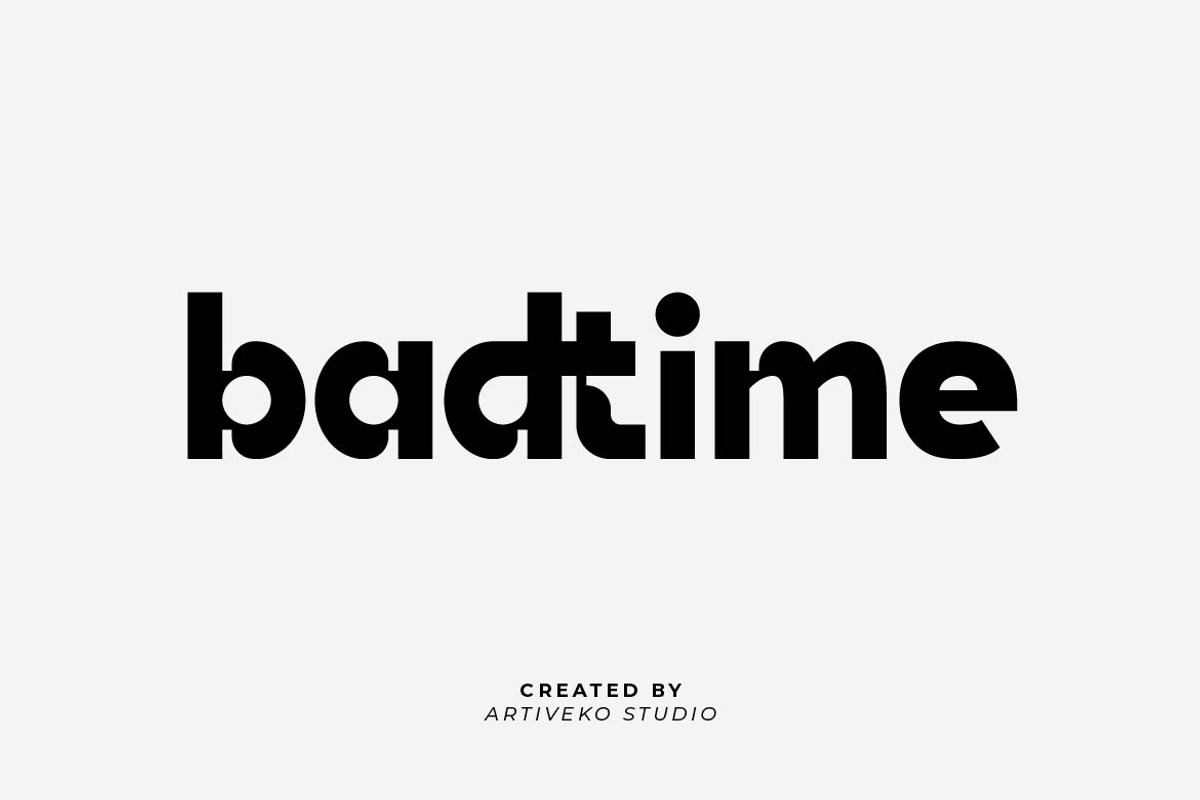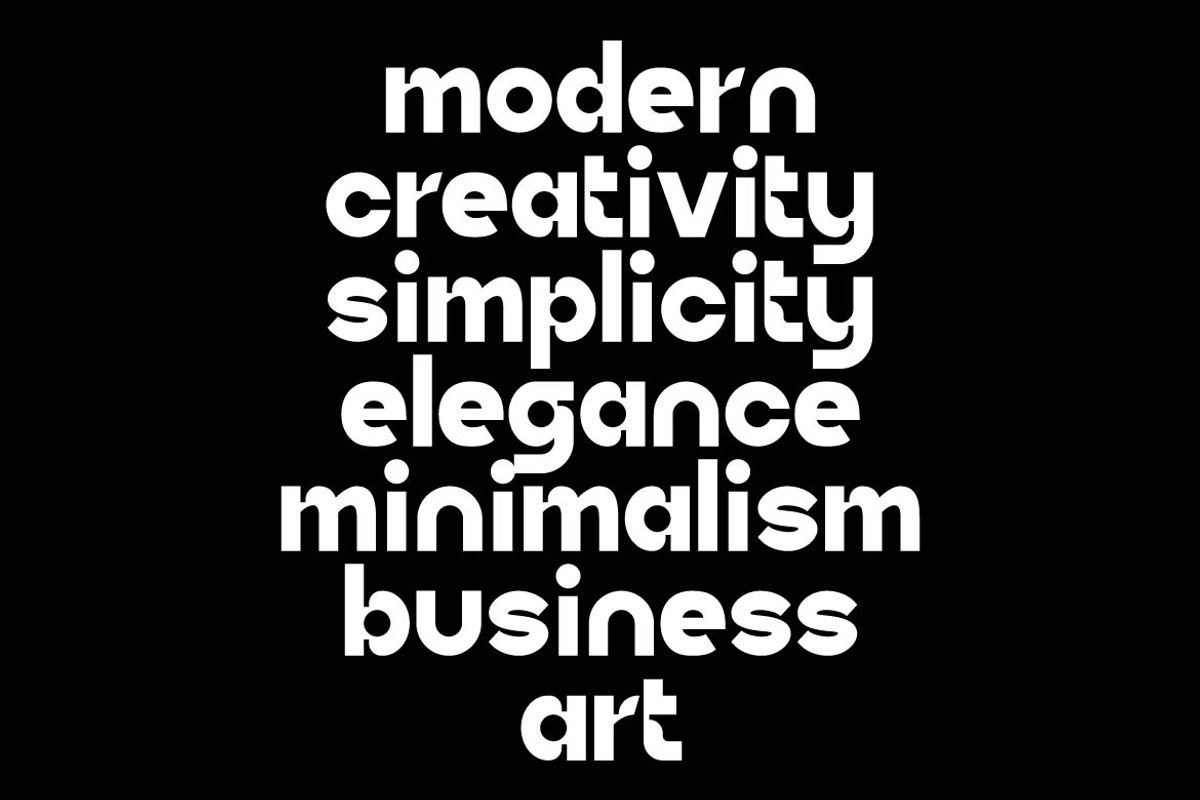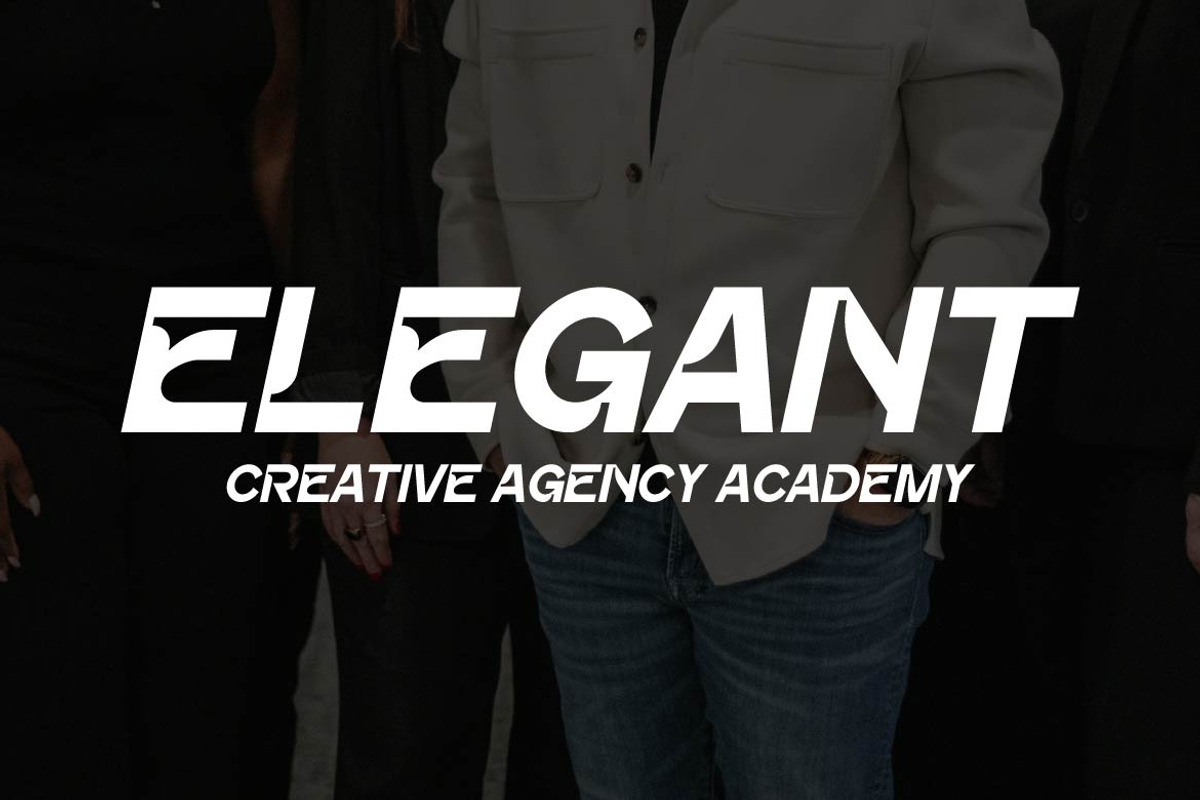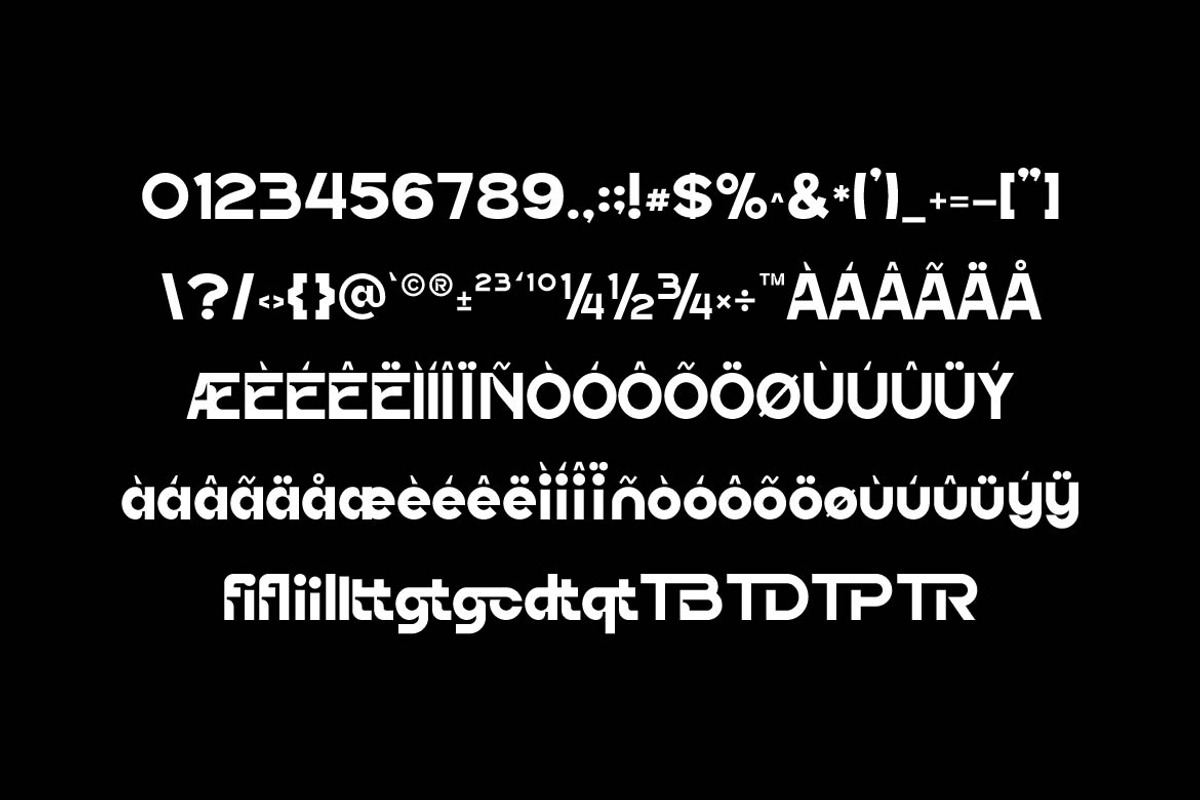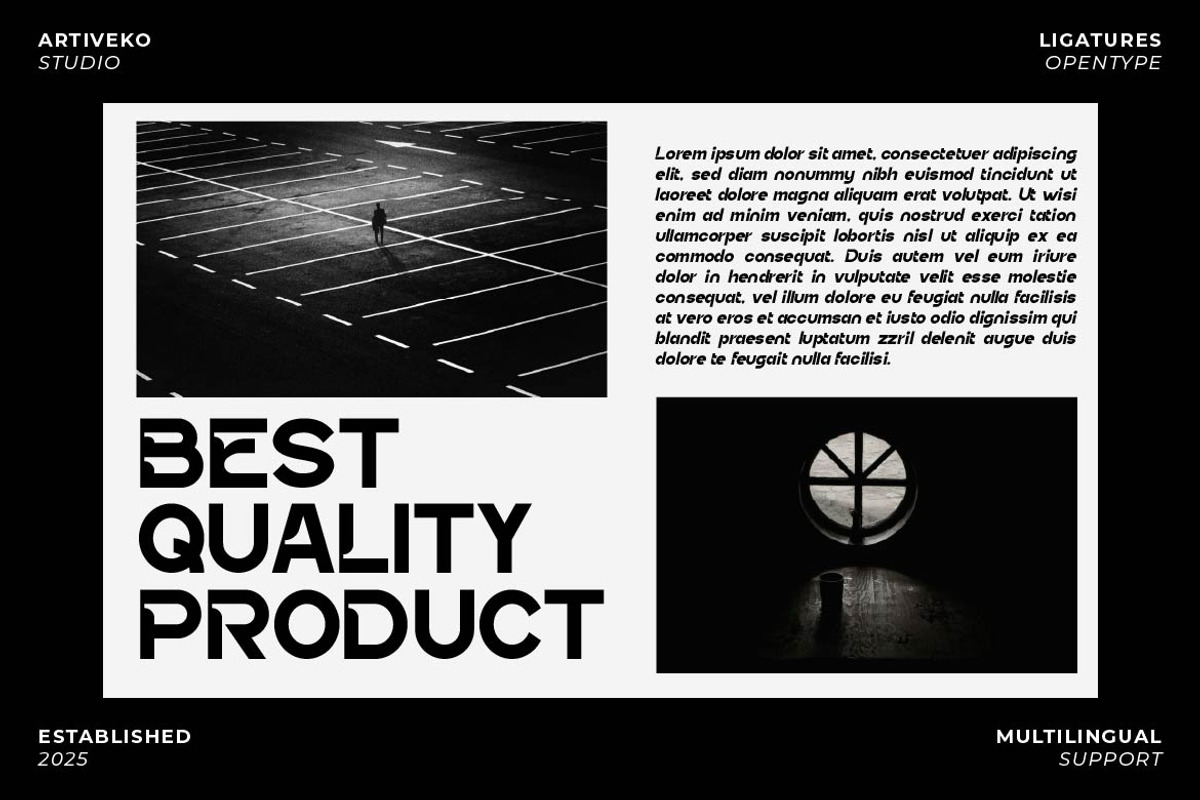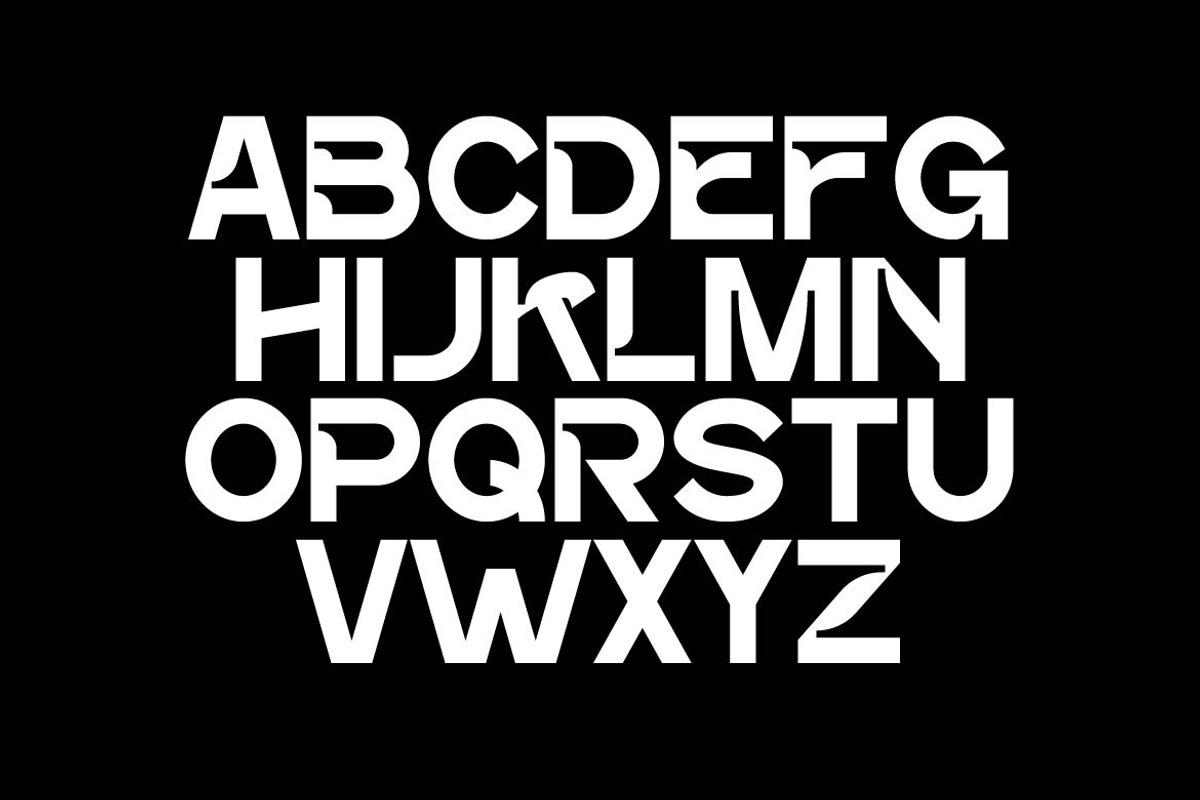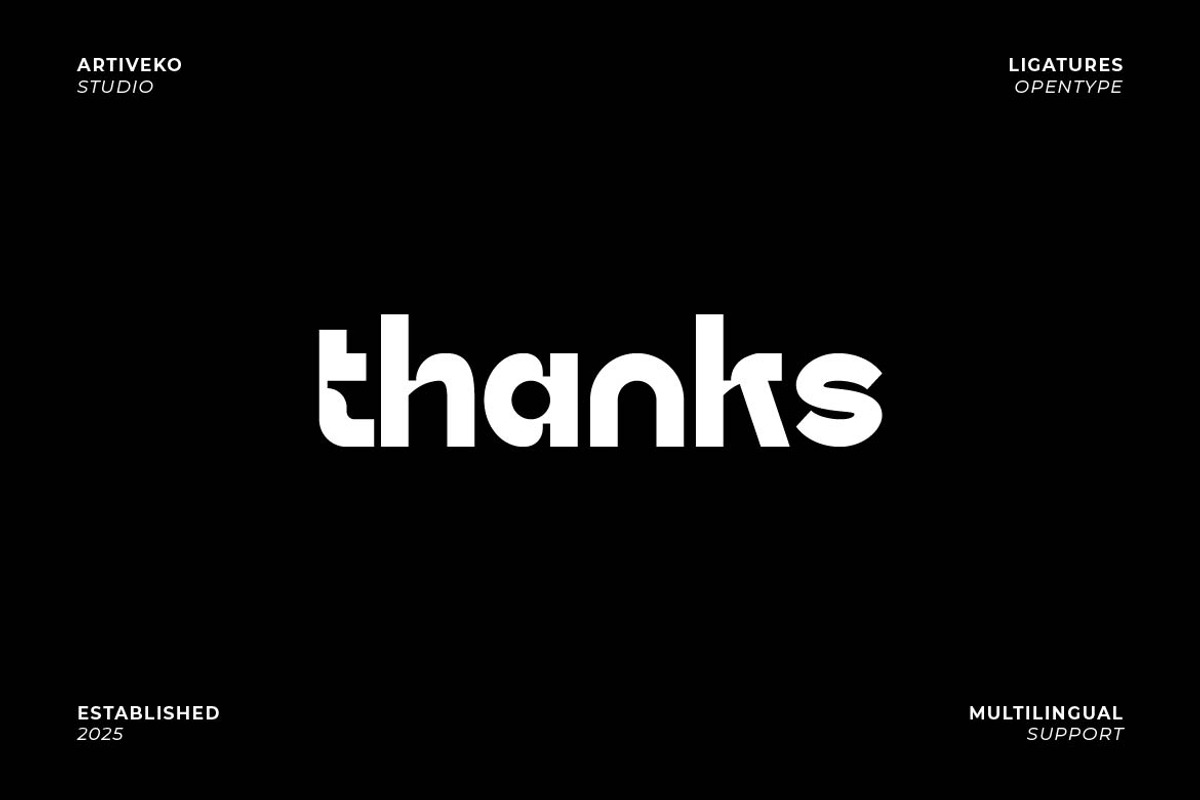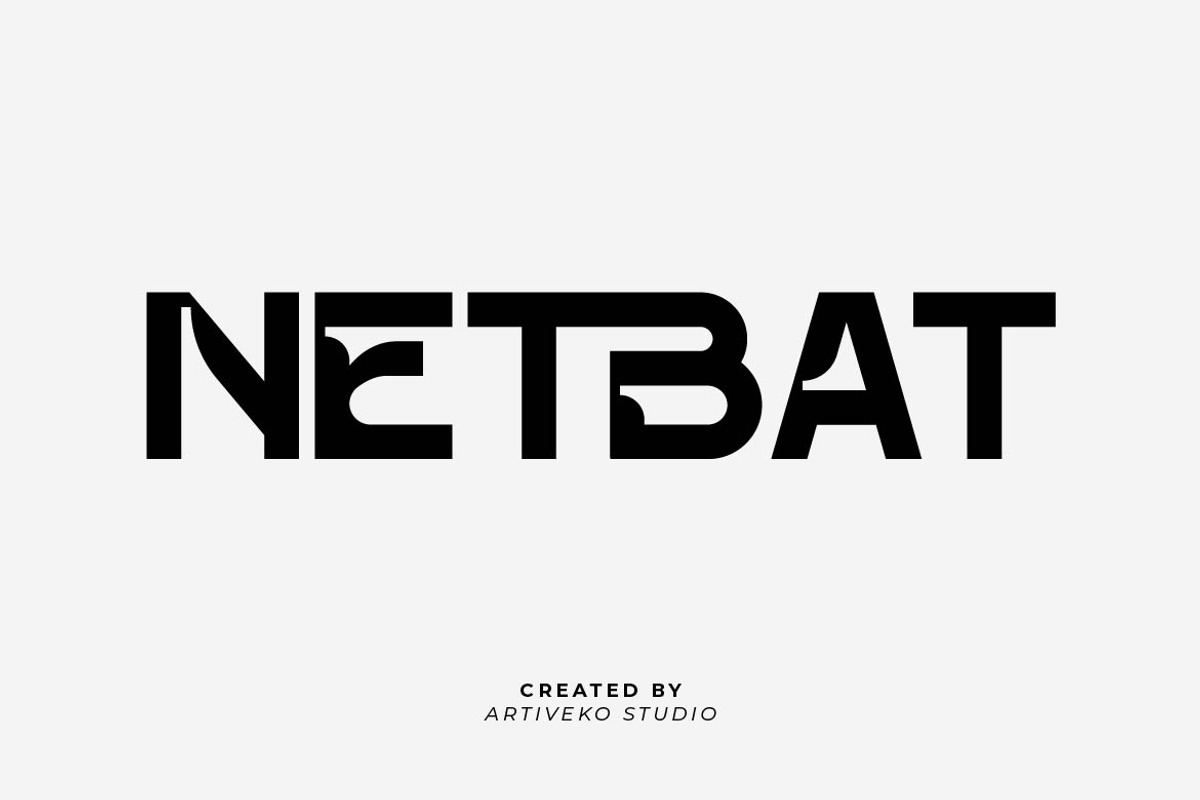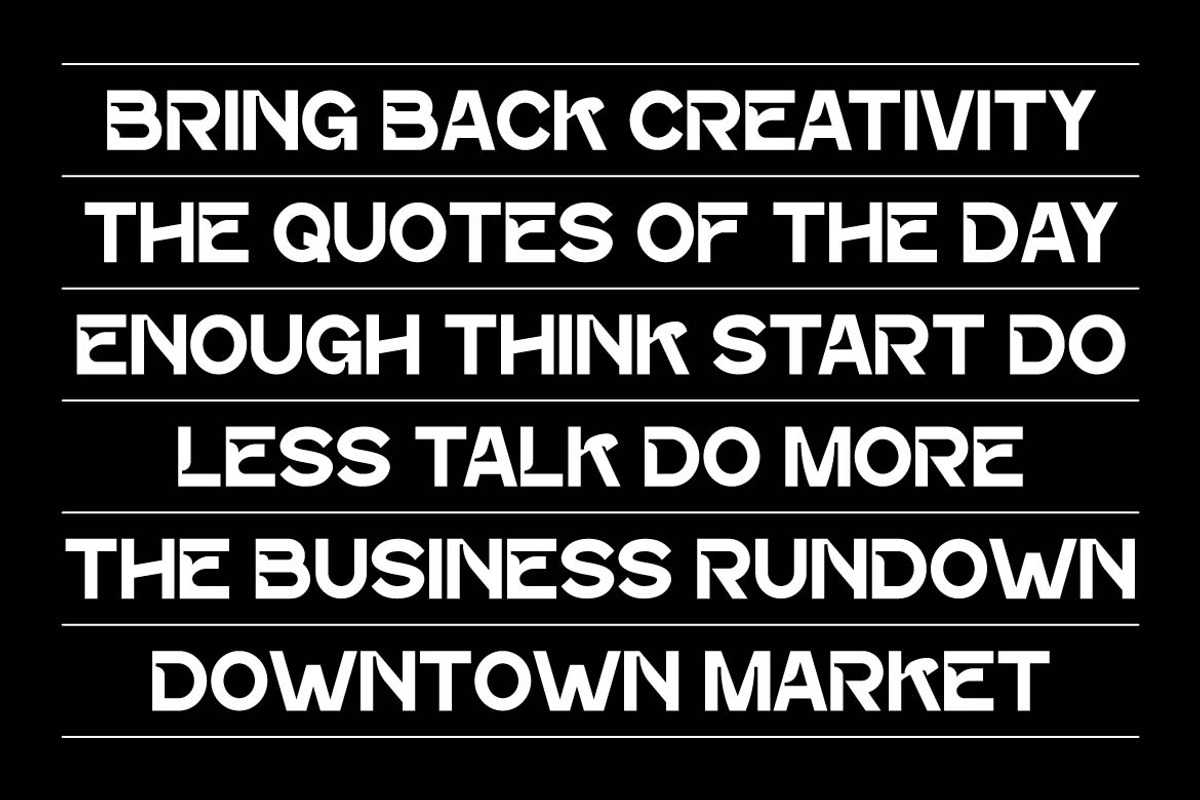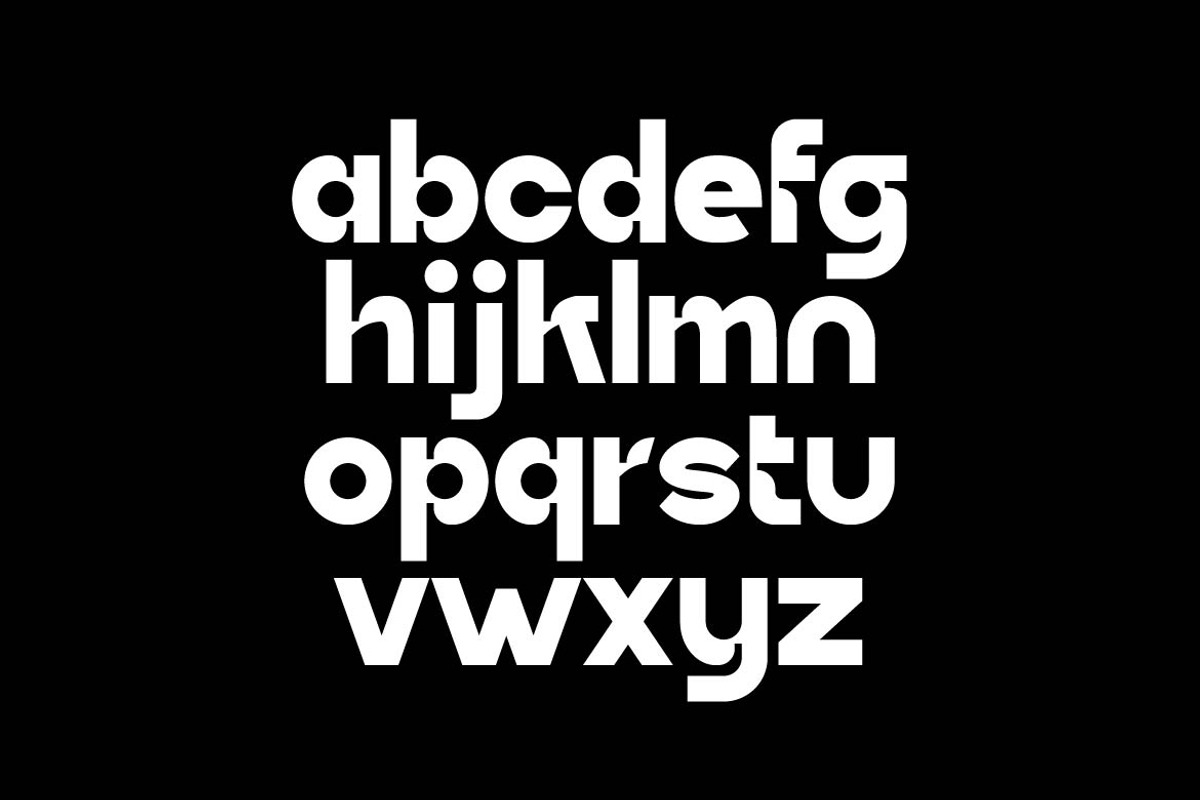
Gatte - Modern Elegant Logo Font
Gatte is a refined sans serif font that blends modern simplicity with timeless elegance. Featuring clean geometry, smooth curves, and well-balanced proportions, Gatte is ideal for branding, luxury packaging, editorial layouts, website headers, and social media graphics that require a sophisticated yet versatile style.